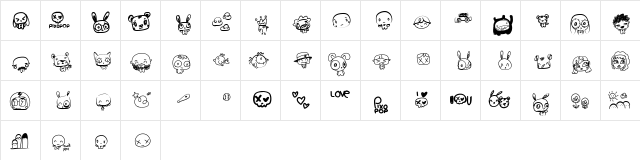
pixopop roughcut Regular
pixopop roughcut trades polish for personality, using distressed and eroded forms to bring grit and attitude to creative work.
A strong fit for alternative music projects, graffiti-adjacent design, and anything that deliberately resists polish.
Pro Tip: Use pixopop roughcut at larger sizes where the texture and irregularity of each letterform can be clearly seen — it loses its character at small sizes.